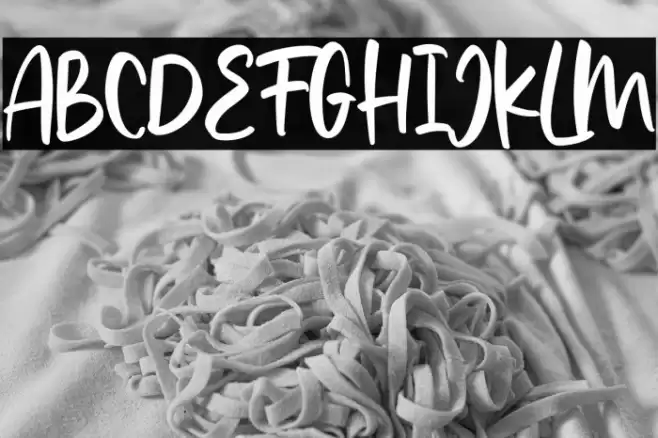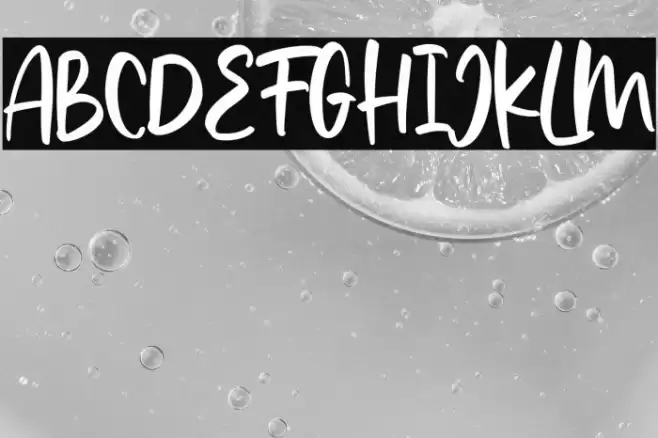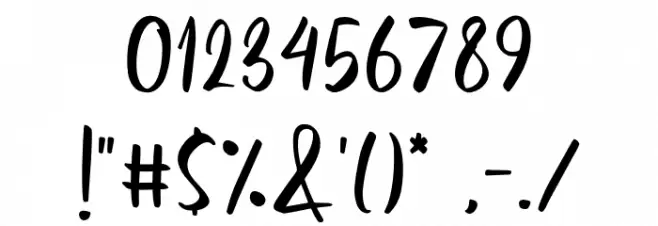
Rosebella-Regular FREE PERSONAL USE Font
Rosebella-Regular FREE PERSONAL USE Description
This font features a playful and energetic handwritten style, characterized by its bold and slightly irregular strokes. The uppercase letters are tall and slightly narrow, giving a sense of height and movement. The lowercase letters maintain a consistent flow, with rounded edges that add a friendly and approachable feel. Numbers are clear and legible, matching the overall style with a touch of whimsy. Special characters are well-integrated, maintaining the font's lively personality. This font is ideal for projects that require a personal touch, such as invitations, greeting cards, or branding for creative businesses.
A playful, handwritten font with bold, energetic strokes and a friendly feel from Uncategorized fonts.
- Font: Rosebella-Regular FREE PERSONAL USE
- Proposed Projects: Ideal for invitations, greeting cards, creative branding, and personal projects.